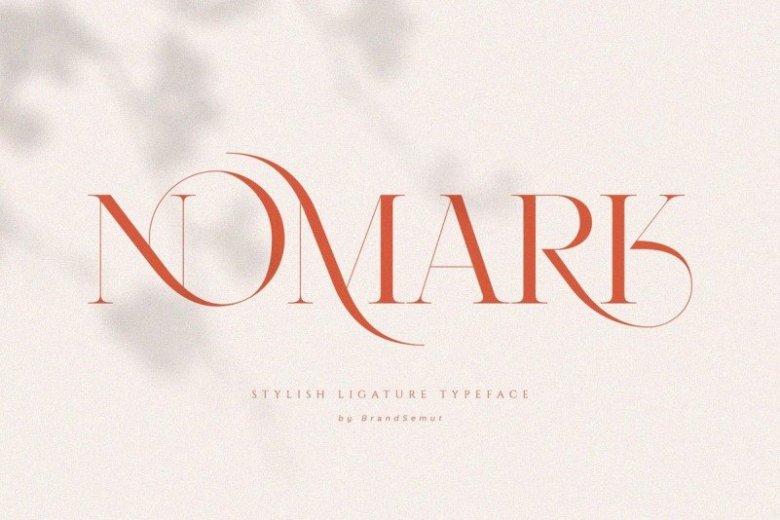
Nomark Serif Font
Nomark Serif Font is elegant serif typeface. Made for any professional project branding. It’s designed and shared by BrandSemut. This font is both modern and nostalgic and works great for logos, already matched up and ready to be used together for your next design! For those of you who are needing a touch of elegant, stylish, classy, chic and modernity for your designs, this font was created for you!
Nomark was built with OpenType features and includes 44 ligatures, alternates, numbers, punctuation, and it also supports other languages.